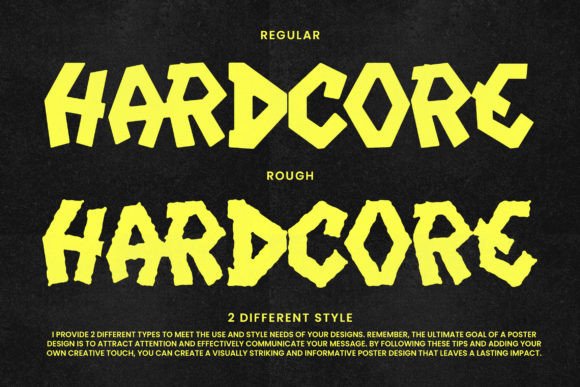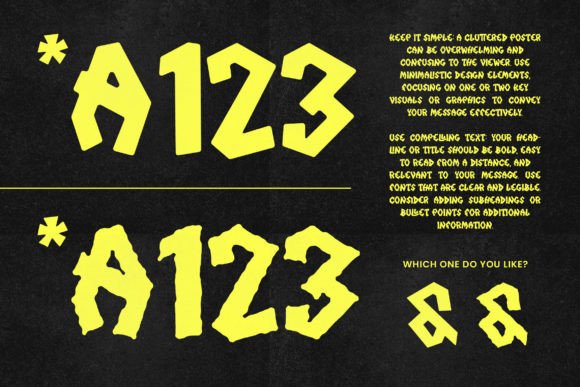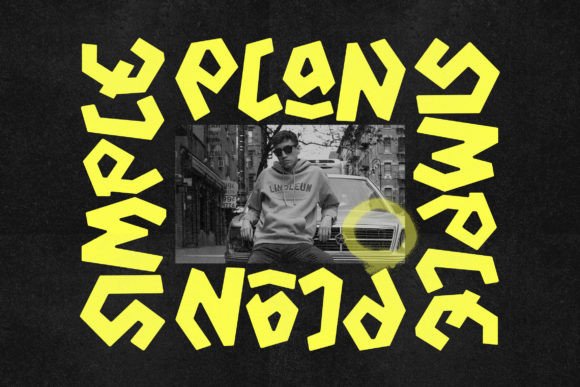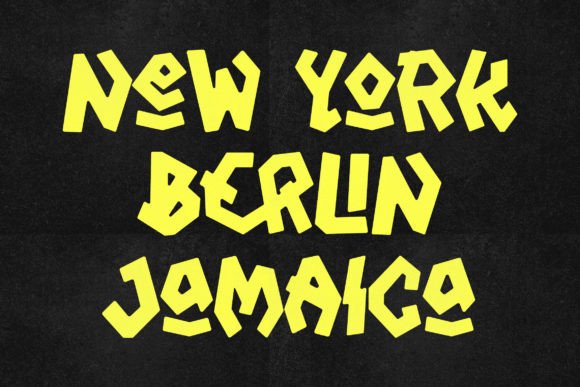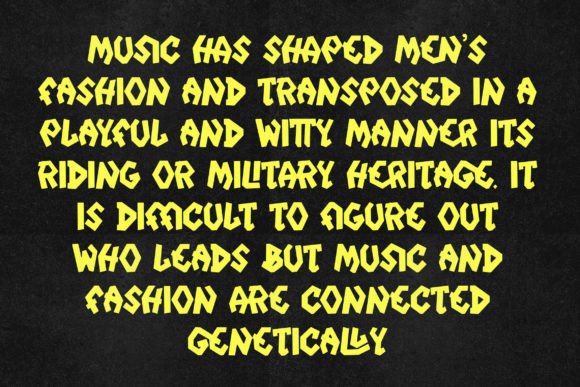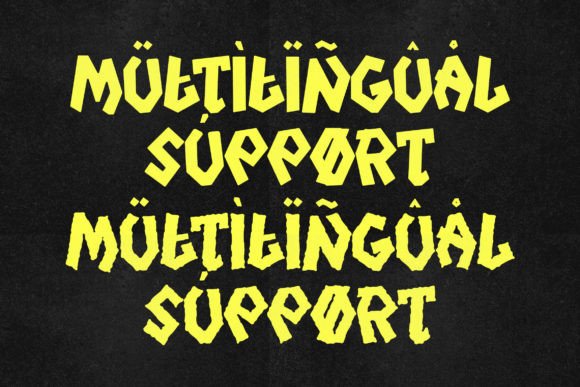
The Hardsick Font: A Streetwear-Inspired Typeface for Modern Design
In the world of typography, fonts are more than just a means of communication – they’re an expression of style, personality, and creativity. For designers and crafters, finding the right font can elevate a project from ordinary to extraordinary. That’s where the Hardsick font comes in, a unique typeface inspired by the vibrant and eclectic world of streetwear.
What is Streetwear?
Streetwear is a style of clothing and footwear that originated in urban culture, particularly in cities like New York, Los Angeles, and Tokyo. Characterized by casual, comfortable, and often oversized or baggy clothing, streetwear incorporates elements from skateboarding, hip-hop, and youth subcultures. This style has become a global phenomenon, influencing fashion, art, and design.
The Inspiration Behind Hardsick Font
The Hardsick font is a creative interpretation of the streetwear aesthetic, distilled into a versatile and meaningful typeface. Inspired by the bold, edgy, and playful vibe of streetwear, this font is designed to add a touch of urban flair to any design project. Whether you’re working on a logo, poster, or social media graphic, the Hardsick font is the perfect choice for designers and crafters looking to infuse their work with a modern, streetwear-inspired style.
Key Features of the Hardsick Font
So, what makes the Hardsick font so special? Here are a few key features that set it apart:
• Versatility: The Hardsick font is incredibly versatile, making it suitable for a wide range of design applications, from bold headlines to detailed body text.
• Uniqueness: With its streetwear-inspired design, the Hardsick font offers a fresh alternative to more traditional typefaces.
• Legibility: Despite its bold and edgy design, the Hardsick font remains highly legible, ensuring that your message gets across clearly.
How to Use the Hardsick Font in Your Designs
Ready to add the Hardsick font to your design toolkit? Here are a few ideas to get you started:
• Logo Design: Use the Hardsick font to create bold, eye-catching logos that reflect the urban, streetwear-inspired style of your brand.
• Poster Design: Add a touch of streetwear flair to your posters with the Hardsick font, perfect for promoting events, products, or services.
• Social Media Graphics: Elevate your social media graphics with the Hardsick font, creating engaging and shareable content that resonates with your audience.
Tips for Pairing the Hardsick Font with Other Design Elements
To get the most out of the Hardsick font, try pairing it with other design elements that complement its streetwear-inspired style. Here are a few tips:
• Bold Colors: Pair the Hardsick font with bold, vibrant colors to create a striking visual effect.
• Geometric Shapes: Combine the Hardsick font with geometric shapes, such as triangles or hexagons, to add a touch of urban flair to your design.
• Texture and Patterns: Experiment with texture and patterns, such as denim or camouflage, to add depth and interest to your design.
The Hardsick font is a game-changer for designers and crafters looking to add a touch of streetwear style to their work. With its bold, edgy design and versatile application, this font is sure to elevate your designs to the next level. So why wait? Add the Hardsick font to your favorite creative ideas and see the results for yourself!